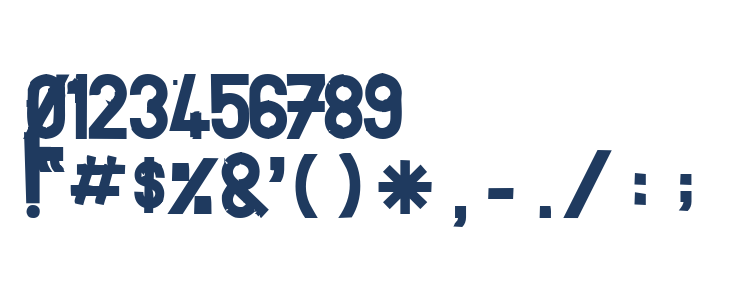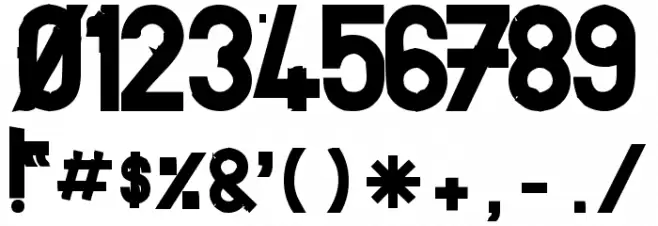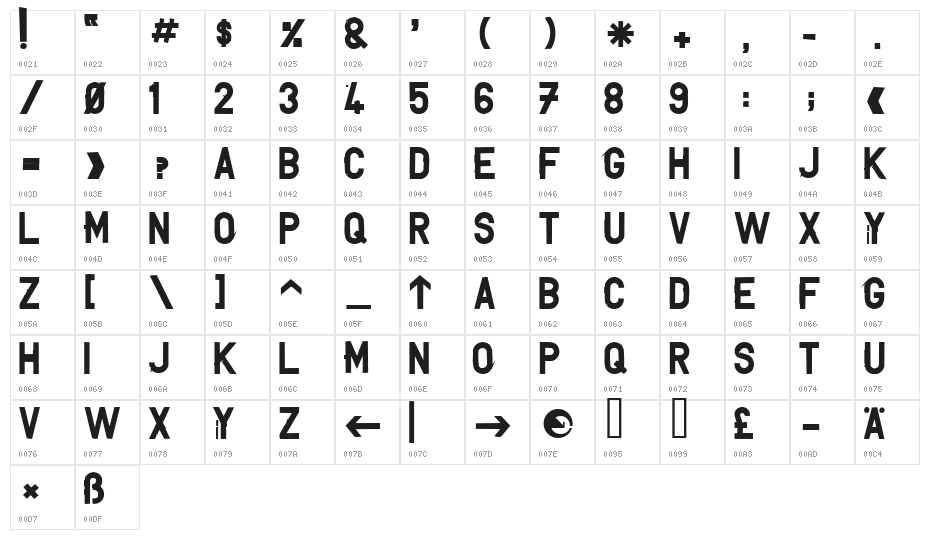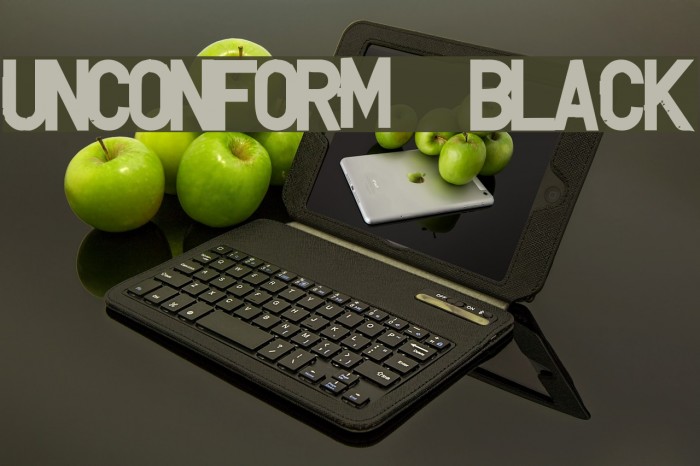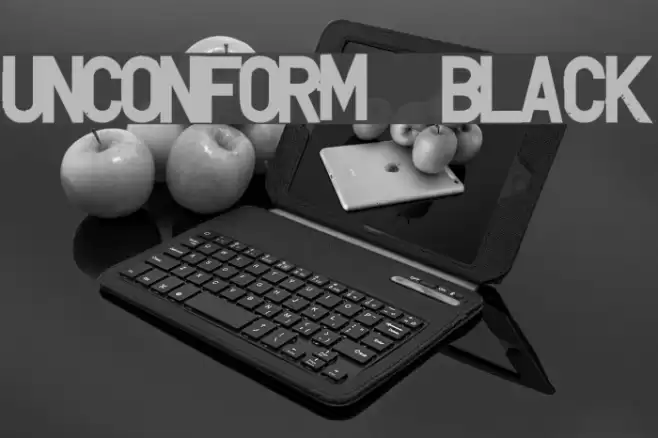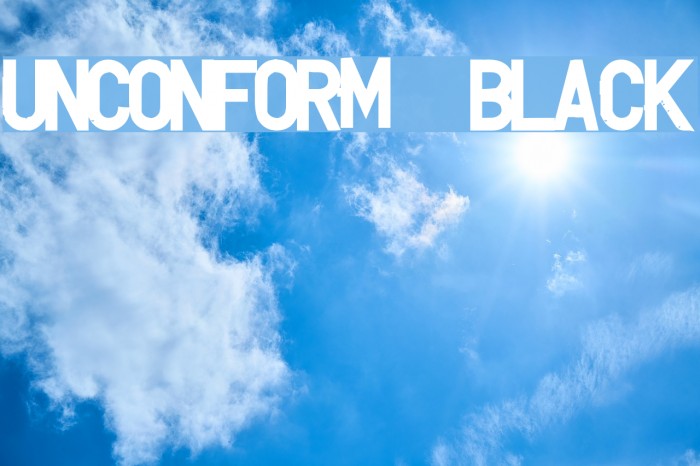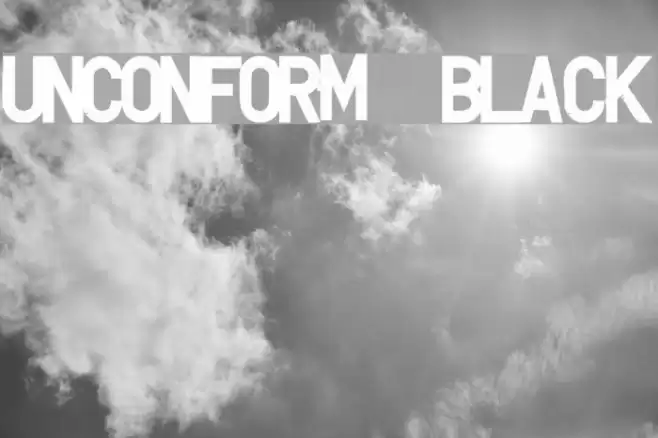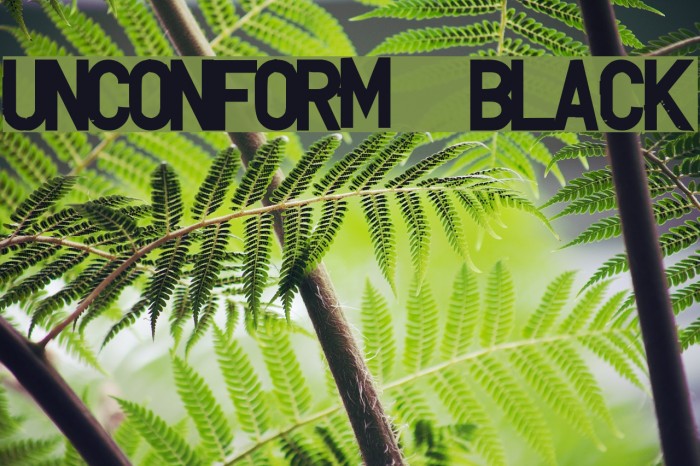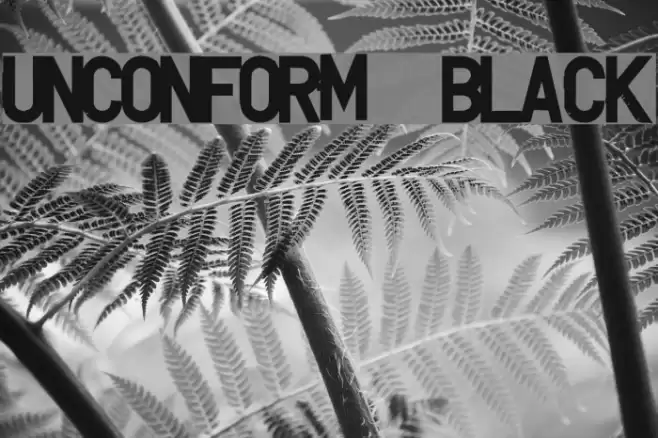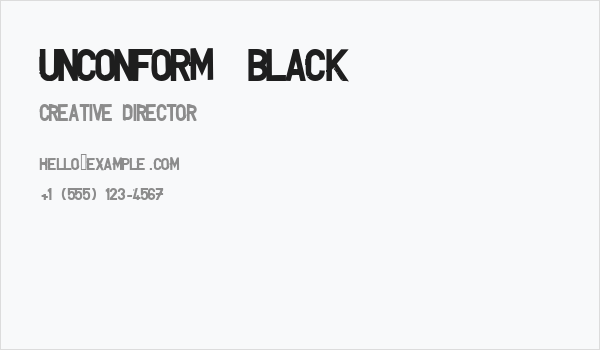
UNCONFORM Black Font
UNCONFORM Black Description
This font exhibits a bold and striking appearance with a distinctly modern and edgy style. The characters are robust and heavily weighted, featuring sharp angles and clean lines that convey a sense of strength and assertiveness. The uppercase and lowercase letters maintain a consistent width, contributing to a uniform and cohesive look. The numerals and special characters are designed with the same boldness, ensuring they stand out prominently. The overall design is highly suitable for making impactful statements in headlines or logos, where visibility and attention are paramount.